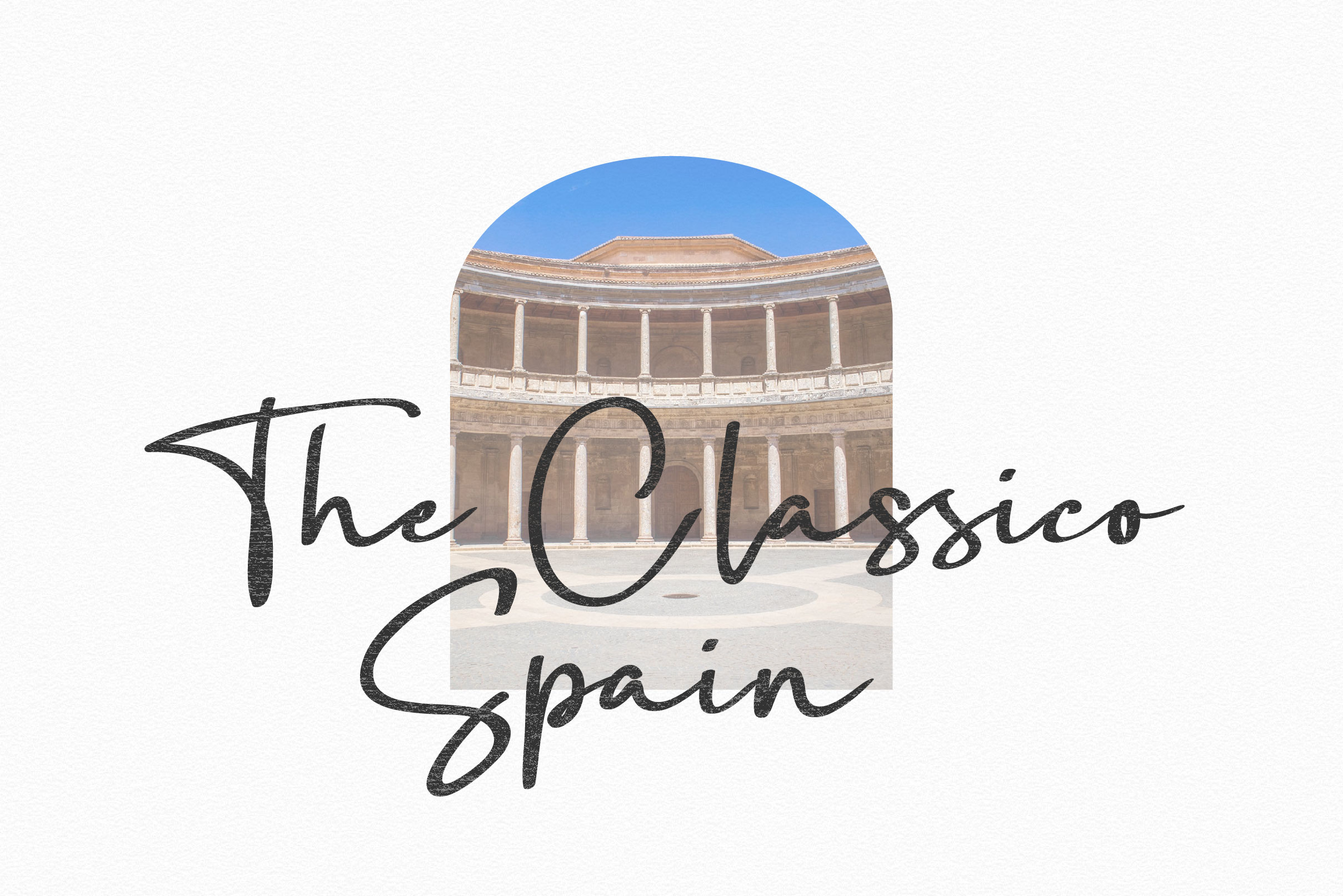
Dellimun Font
Dellimun Script Font
This is a sweet, stylish, and delicate script font. Whatever the topic, this font will be a wonderful asset to your font library, as it has the potential to enhance any creation. This font is PUA encoded which means you can access all of the glyphs and swashes with ease!